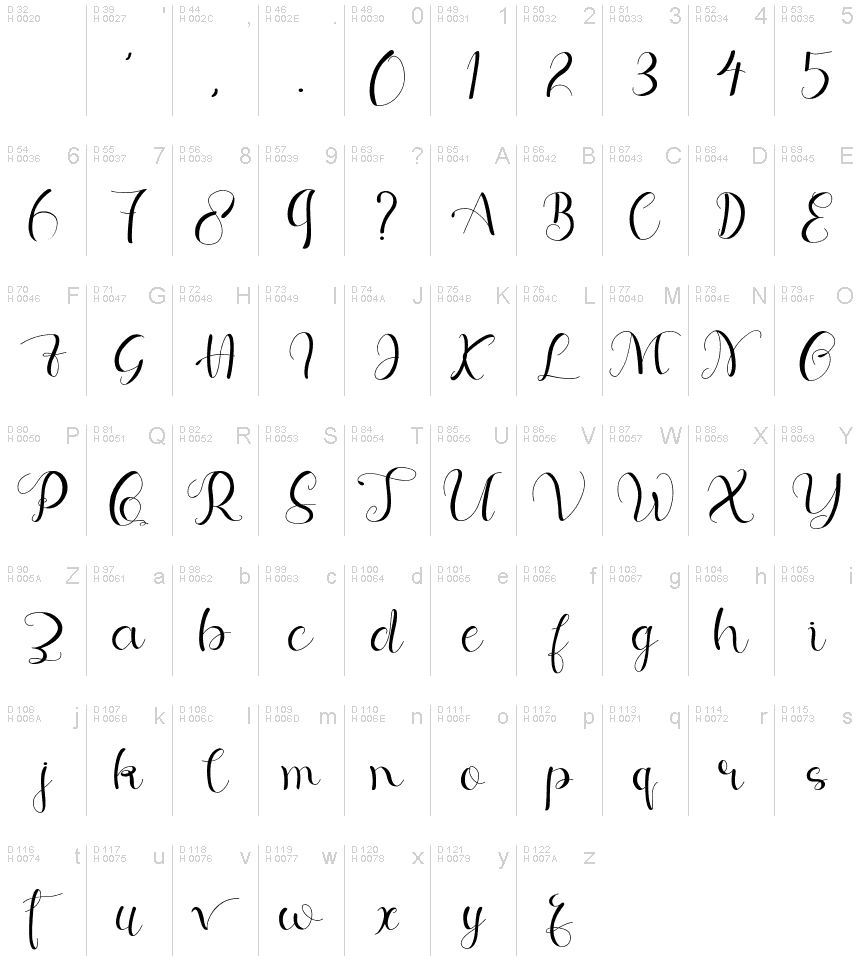
Keorta Script Regular
Keorta Script is a handwritten font, made with ordinary pens and markers, with a sweet touch and beautiful curves on each letter. This font is great for your next creative project.